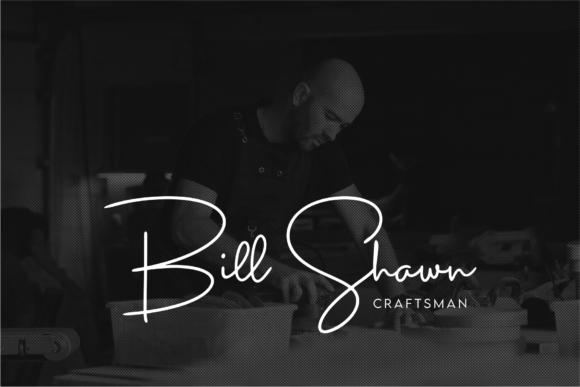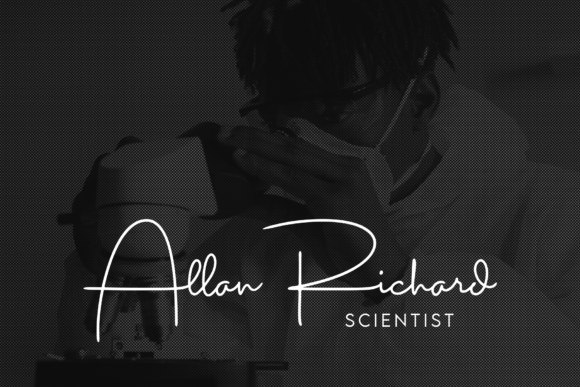
Kindheart Font
db-ku.com - Script & Handwritten -- Kindheart is a delicate and flowing calligraphy typeface with characters that dance along the baseline. It will add a luxury spark to any design project that you wish to create!